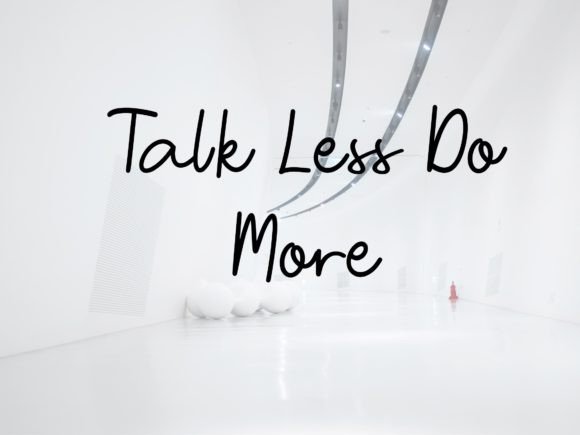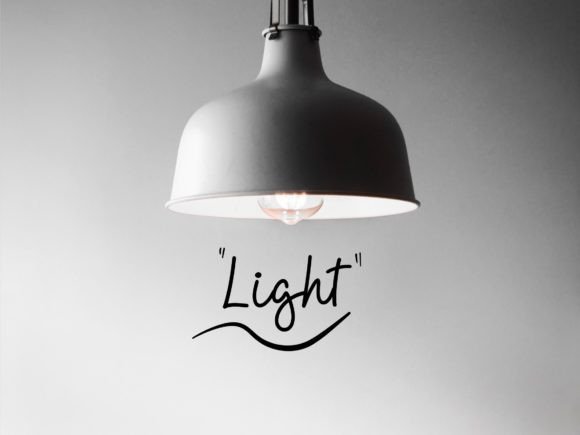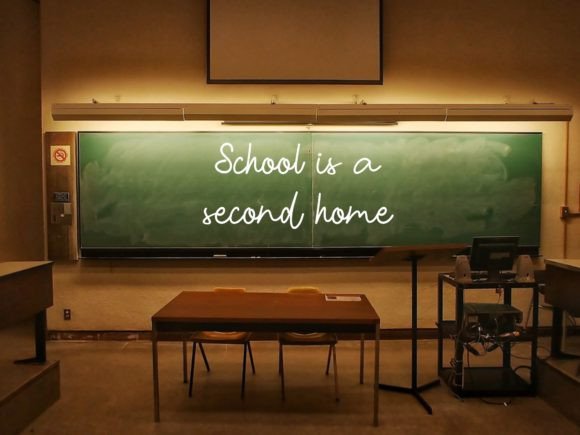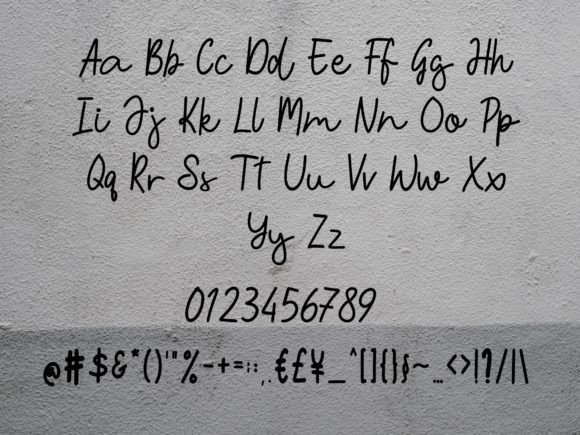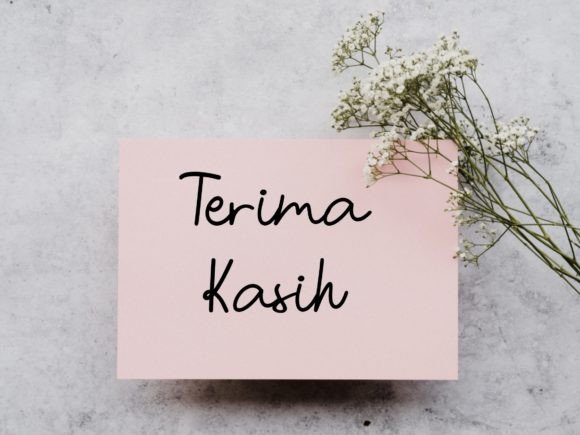
Altidore Font
About Altidore Font
Introducing Altidore, a stylish font that brings an elegant, classy, and modern look to your art projects. This beautiful script font is designed to add a personal touch to your latest creations, making it a versatile choice for a variety of design applications.
The beauty of Altidore lies in its stylish and elegant script, which exudes sophistication. The font’s modern look adds a touch of class to your designs, making it suitable for a range of creative projects.
For personalization in art projects, Altidore becomes a valuable tool. Its script style enhances the uniqueness of your work, giving it a distinctive and elegant flair.
Whether you’re working on digital designs or print materials, Altidore’s versatility shines through. From branding and logos to invitations, posters, and more, this font is crafted to make your designs stand out with a touch of modern elegance.
The stylish nature of Altidore makes it suitable for a variety of contexts where a modern and classy aesthetic is desired. Whether used in digital media or as part of physical prints, the font is designed to make a visual impact.
In conclusion, Altidore is a stylish font that brings an elegant, classy, and modern look to your art projects. Choose Altidore to add a personal touch to your designs, making them visually appealing and sophisticated across various applications.